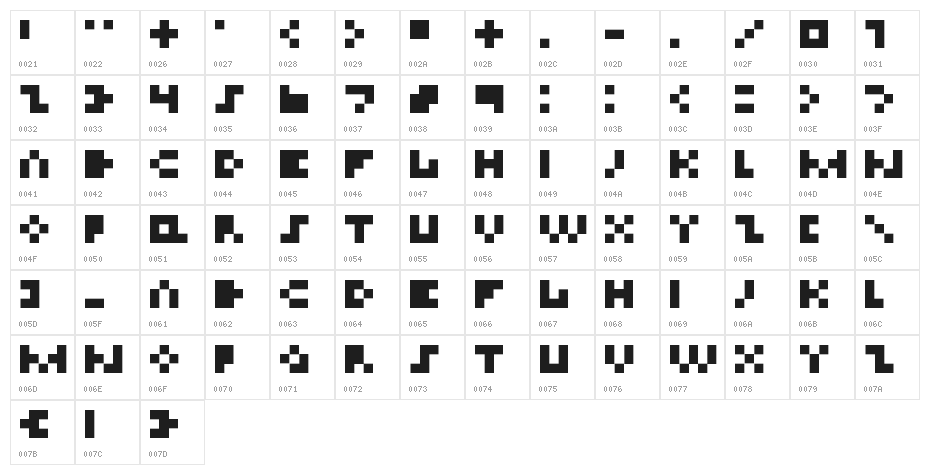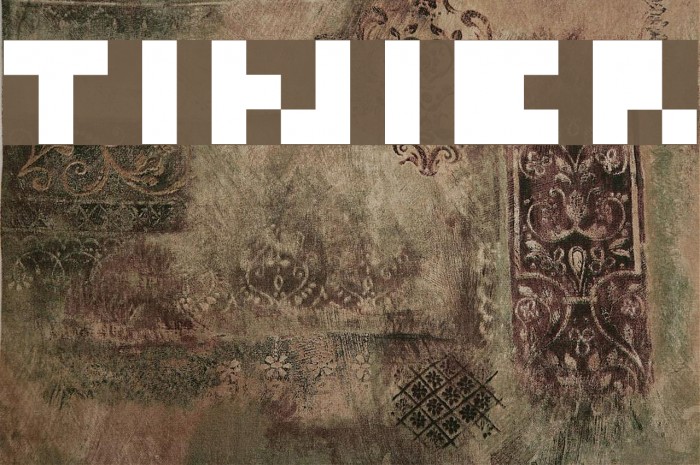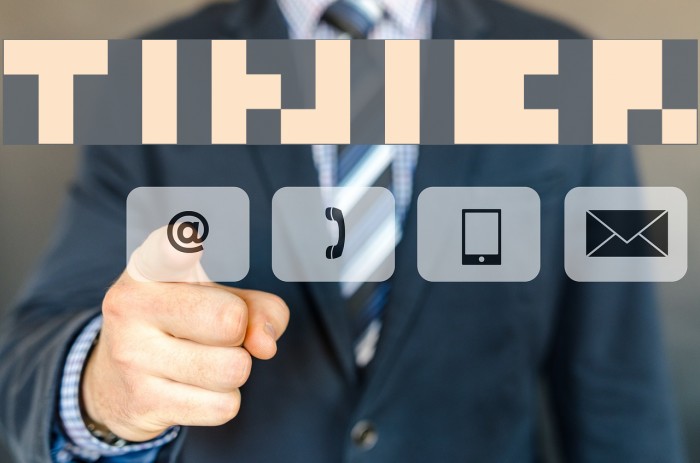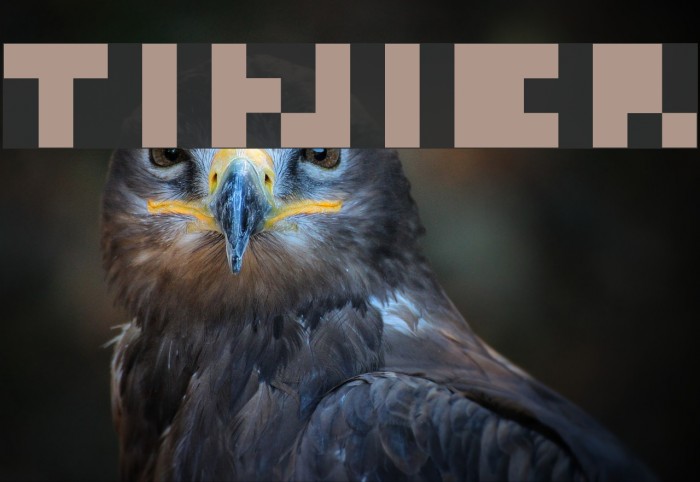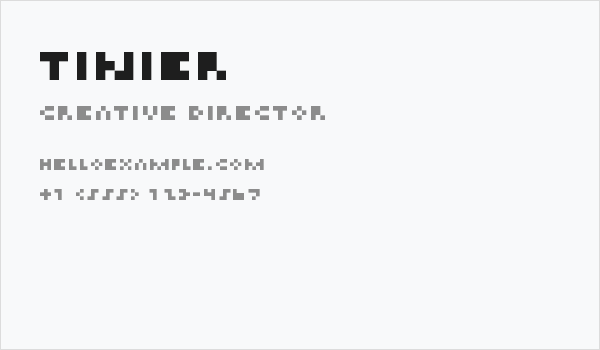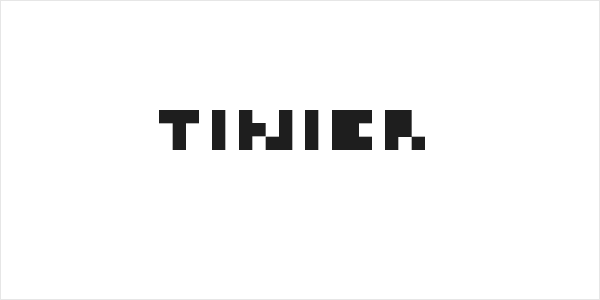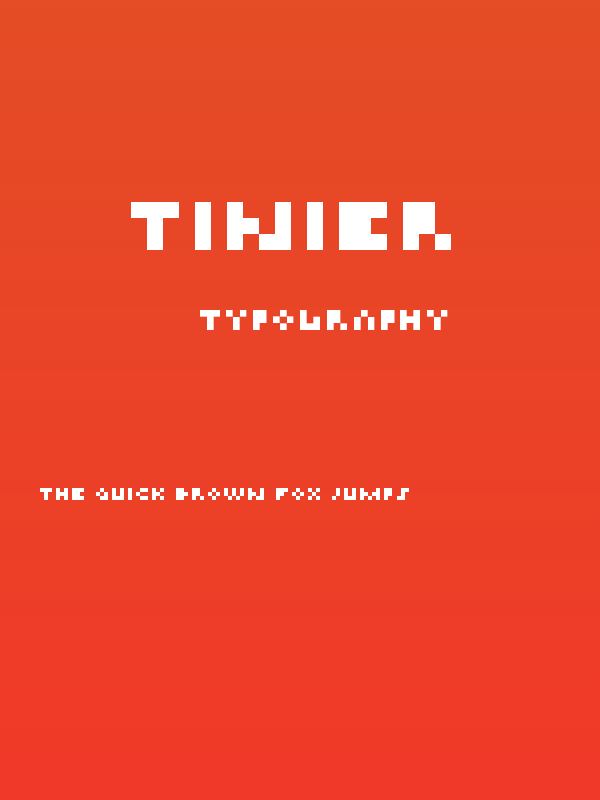
Tinier Font
Tinier Description
This font features a bold, pixelated design reminiscent of early digital displays and video game graphics. Each character is constructed with a blocky, square form, giving it a distinctly retro and digital aesthetic. The uppercase and lowercase letters maintain a consistent height, contributing to a uniform appearance. Numbers and special characters follow the same pixelated style, ensuring cohesion across all elements. The font's geometric nature makes it highly legible at larger sizes, while its unique style adds a playful and nostalgic touch to any project.